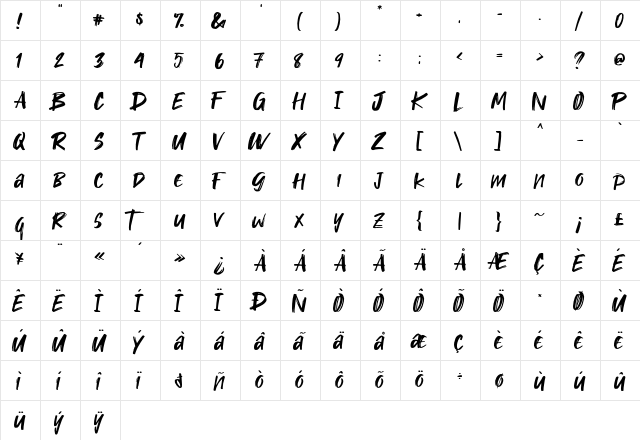
Takota Takota Font Preview
Takota Takota
Takota Takota Font Details
| Style | Takota |
| Foundry | Khurasan |
| Designer | Khurasan |
Design Context for Takota Typeface
Takota is a composed and adaptable typeface that performs quietly and consistently across a wide range of design contexts.